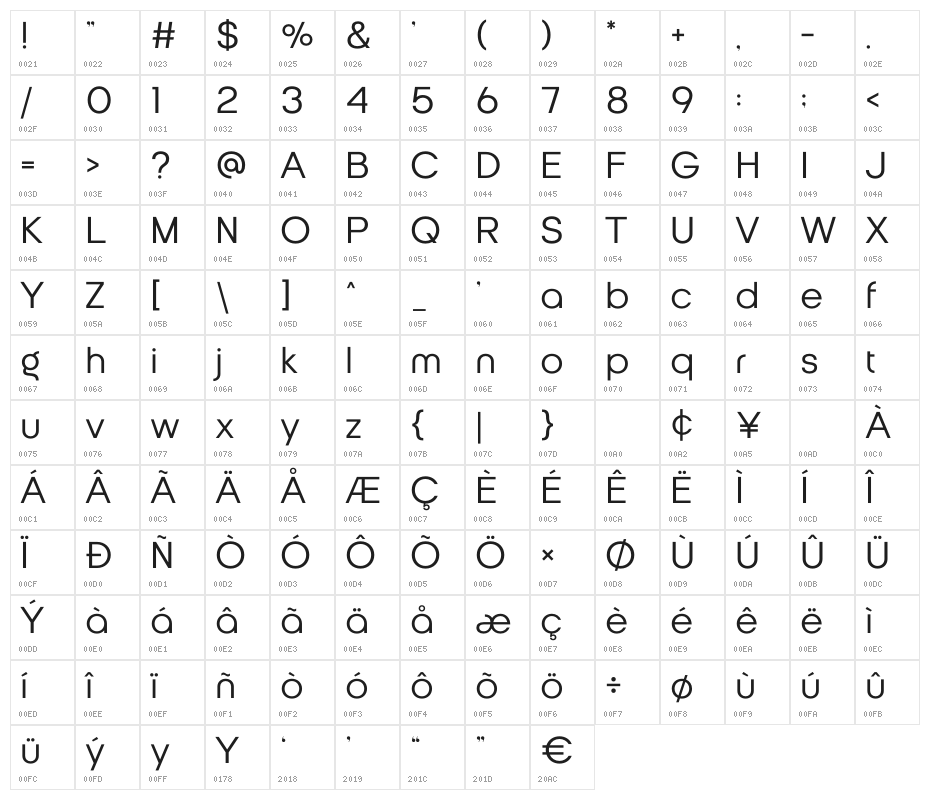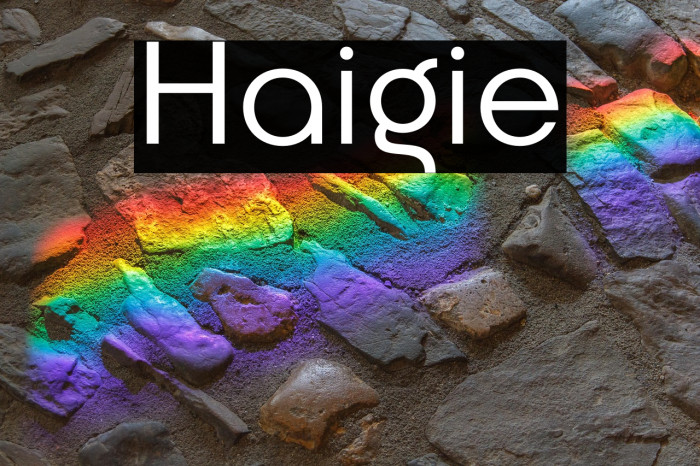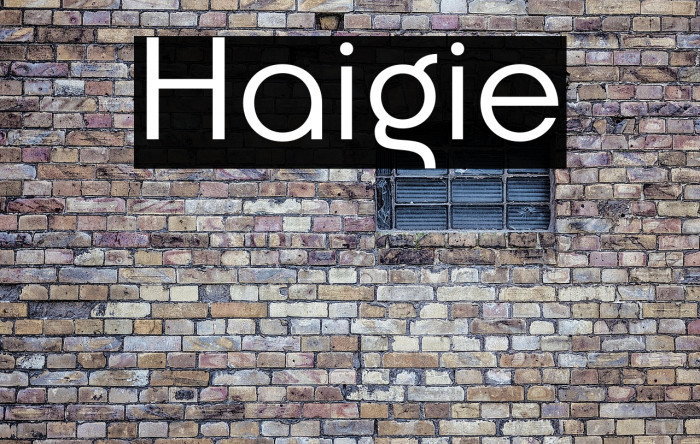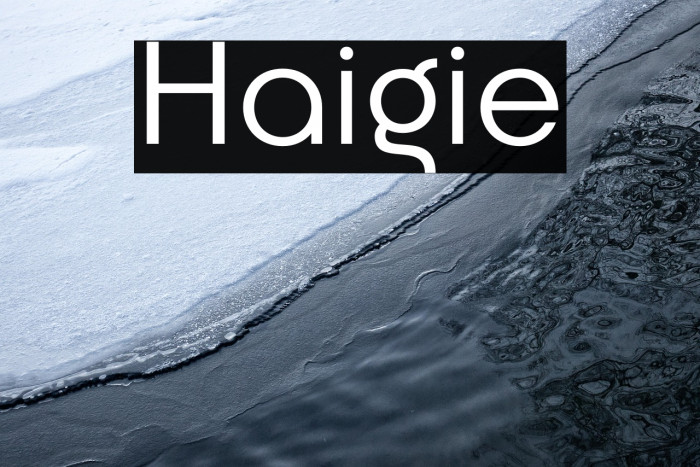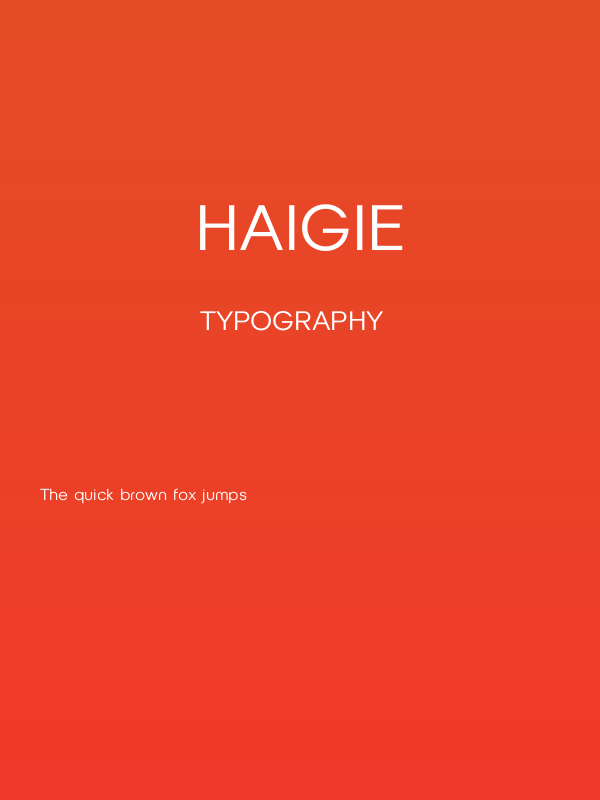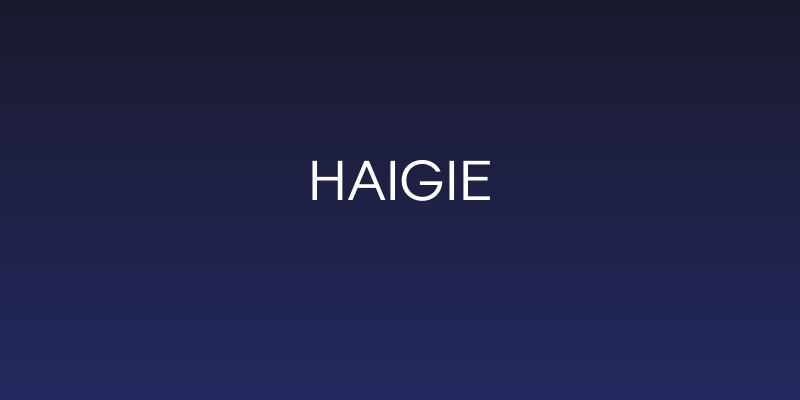
Haigie Font
Haigie Description
This font features a clean and modern sans-serif design with uniform stroke widths, creating a harmonious and balanced appearance. The characters are well-proportioned, with a geometric influence that enhances readability and visual appeal. The uppercase letters are bold and commanding, while the lowercase letters maintain a friendly and approachable feel. The numerals are clear and distinct, making them suitable for various applications. Special characters are designed with precision, ensuring consistency throughout the typeface. The overall aesthetic is sleek and contemporary, making it versatile for both digital and print media.